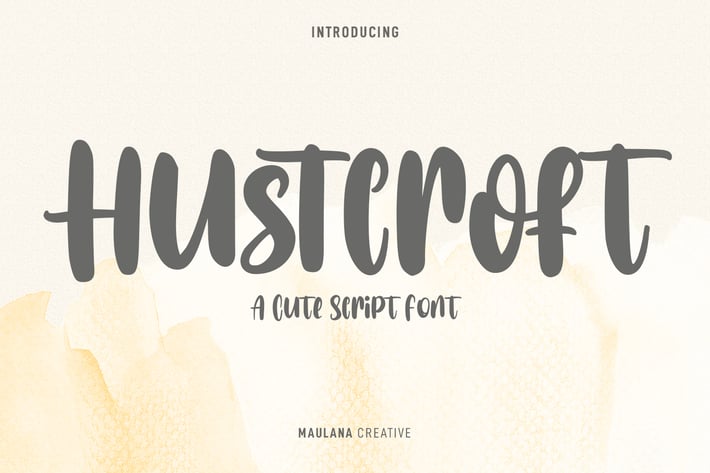
Hustcroft Handwritten Font
Hustcroft is a fancy handwritten display font. With bold contrast stroke, fun character with a bit of ligatures and alternates. To give you an extra creative work. Hustcroft font support multilingual more than 100+ language. This font is good for logo design, Social media, Movie Titles, Books Titles, a short text even a long text letter and good for your secondary text font with sans or serif. Make a stunning work with Hustcroft font.